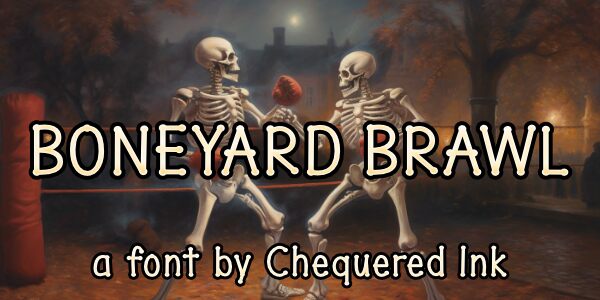
Boneyard Brawl
Boneyard Brawl, designed by Chequered Ink, is the perfect font for all your spooky Halloween projects. With its semi-light weight and condensed width, this font adds a haunting touch to any design. Use it for invitations to your annual costume party or create eerie posters for haunted houses. The unique style of Boneyard Brawl will make your projects stand out from the rest. Whether you're designing flyers for a horror movie marathon or creating spine-chilling social media graphics, this semi-light font is sure to impress your audience. Get ready to brawl with Boneyard Brawl!